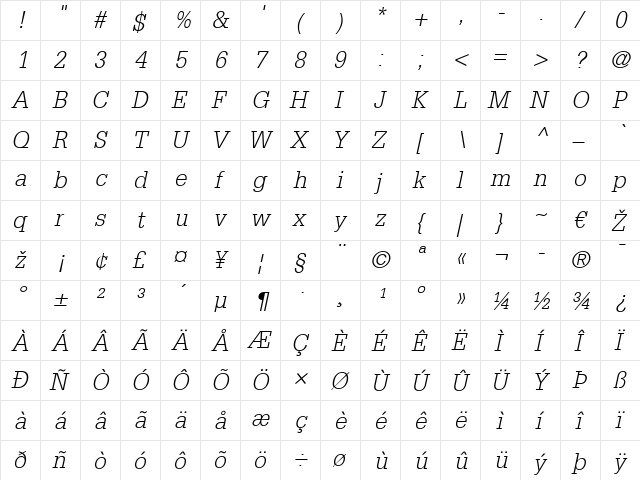
Glypha LT Light Italic
| Designer | Adrian Frutiger |
Design Context for Glypha LT Light Typeface
Glypha LT Light offers clean, dependable letterforms without strong stylistic allegiance, making it a practical choice for designers who need flexibility. Its italic angle brings a sense of urgency and motion to the letterforms. Its slender proportions lend an understated elegance to any composition.
Pro Tip: Use Glypha LT Light for emphasis, pull quotes, and subheadings where its slanted energy can add rhythm to the layout.